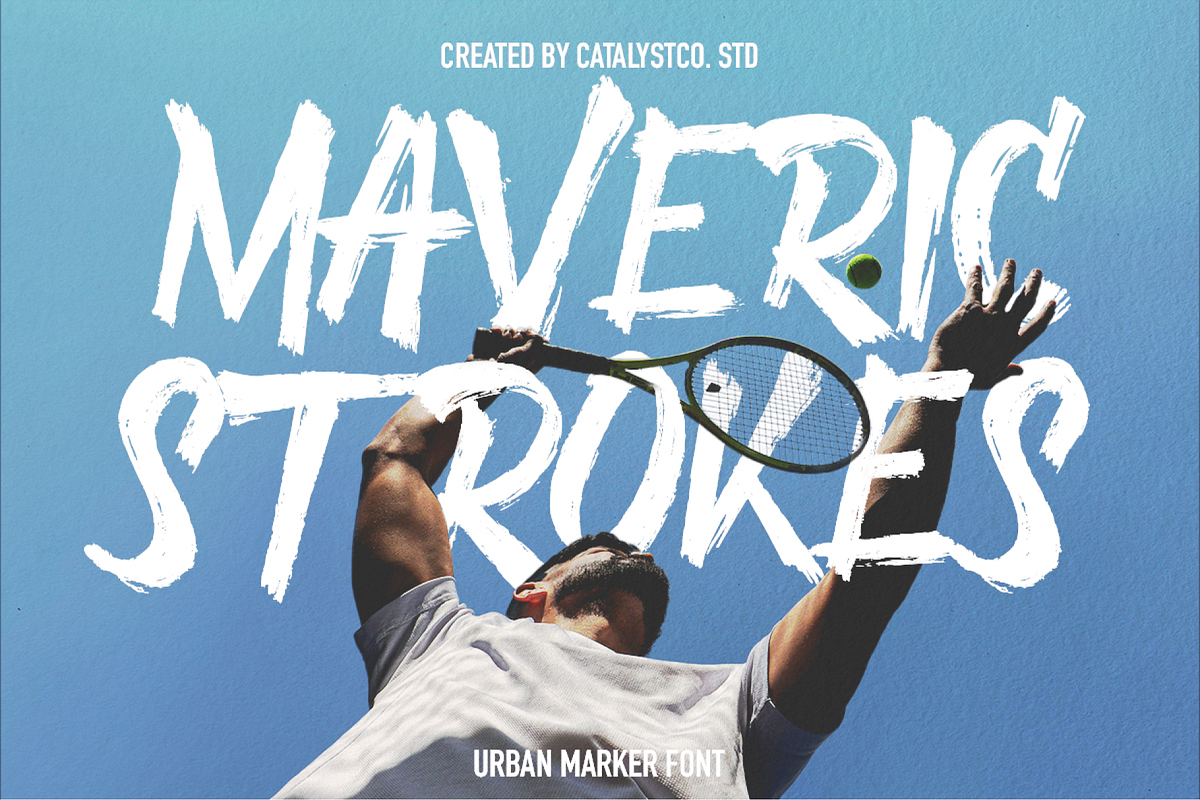
Maverick Stroke Urban Marker Font Free Download
Maverick Stroke Urban Marker Font Free Download is a bold and edgy typeface inspired by urban street art and graffiti. With its rough, textured strokes and dynamic lines, this font is perfect for hip-hop branding, skate culture visuals, urban streetwear logos, posters, and social media content aimed at a young, rebellious audience. It brings an authentic, gritty vibe to any design that needs to stand out with a raw, creative edge.
Using the Maverick Stroke Urban Marker Font Free Download adds a sense of street-smart flair and attitude to your projects. Whether you're designing merchandise, album covers, or promotional materials, this font ensures your design has a powerful, urban look that captures the essence of city life and youthful energy.